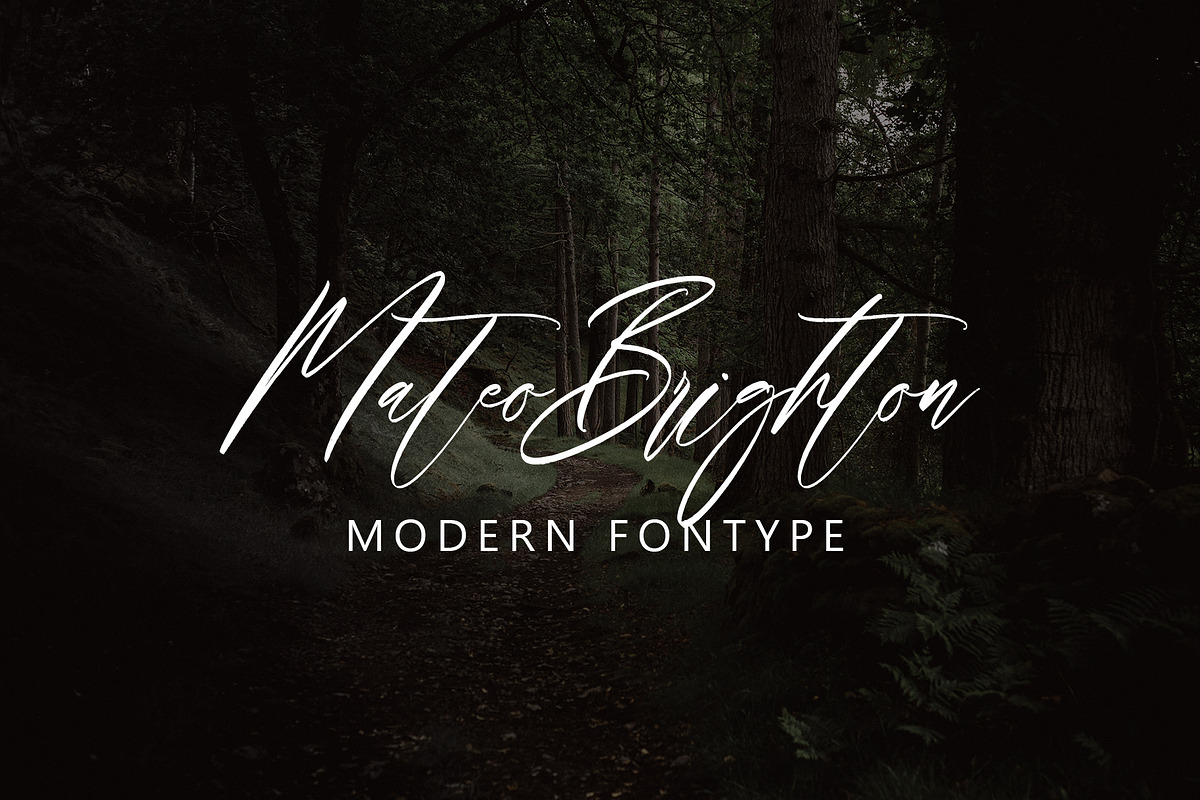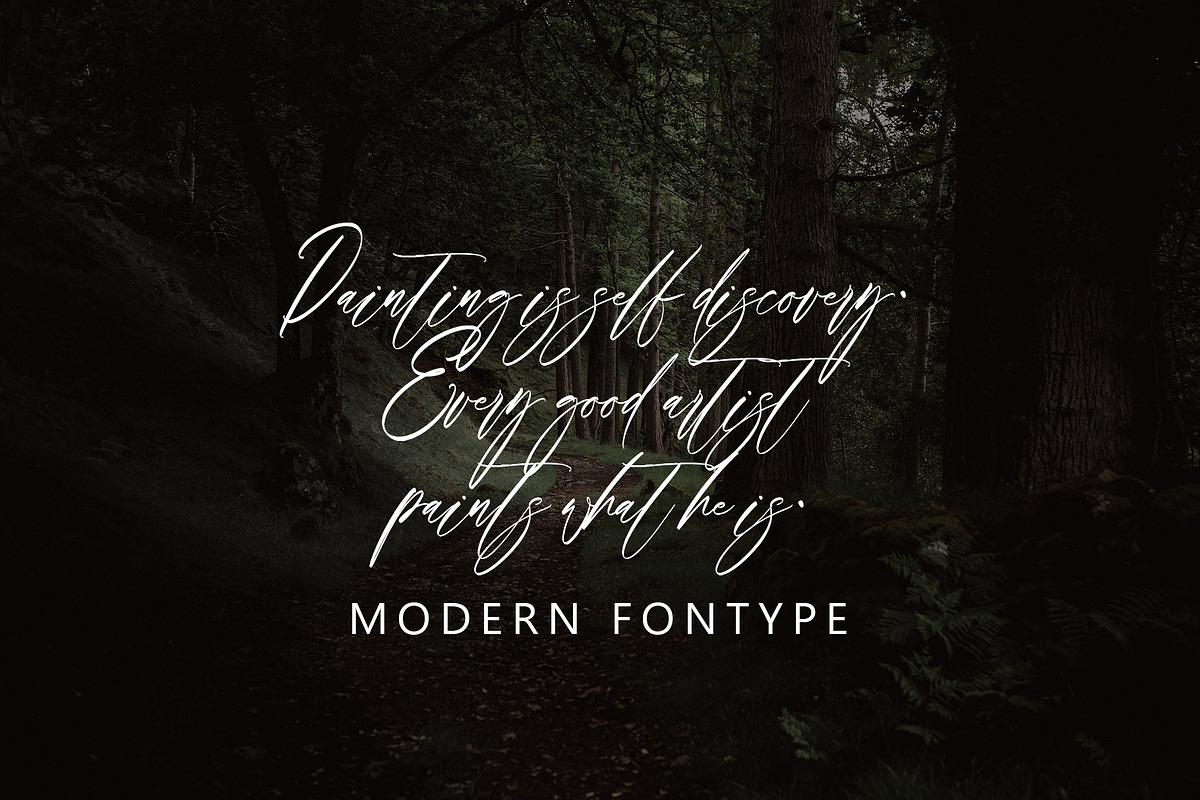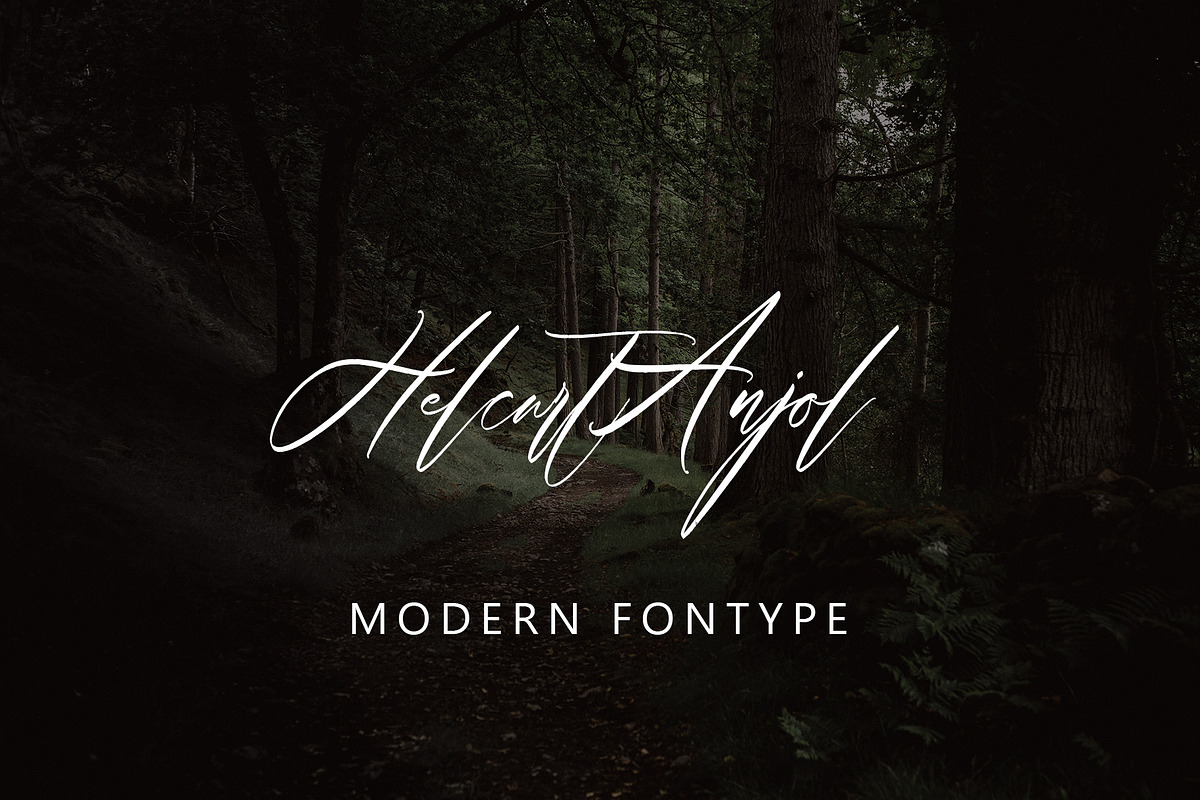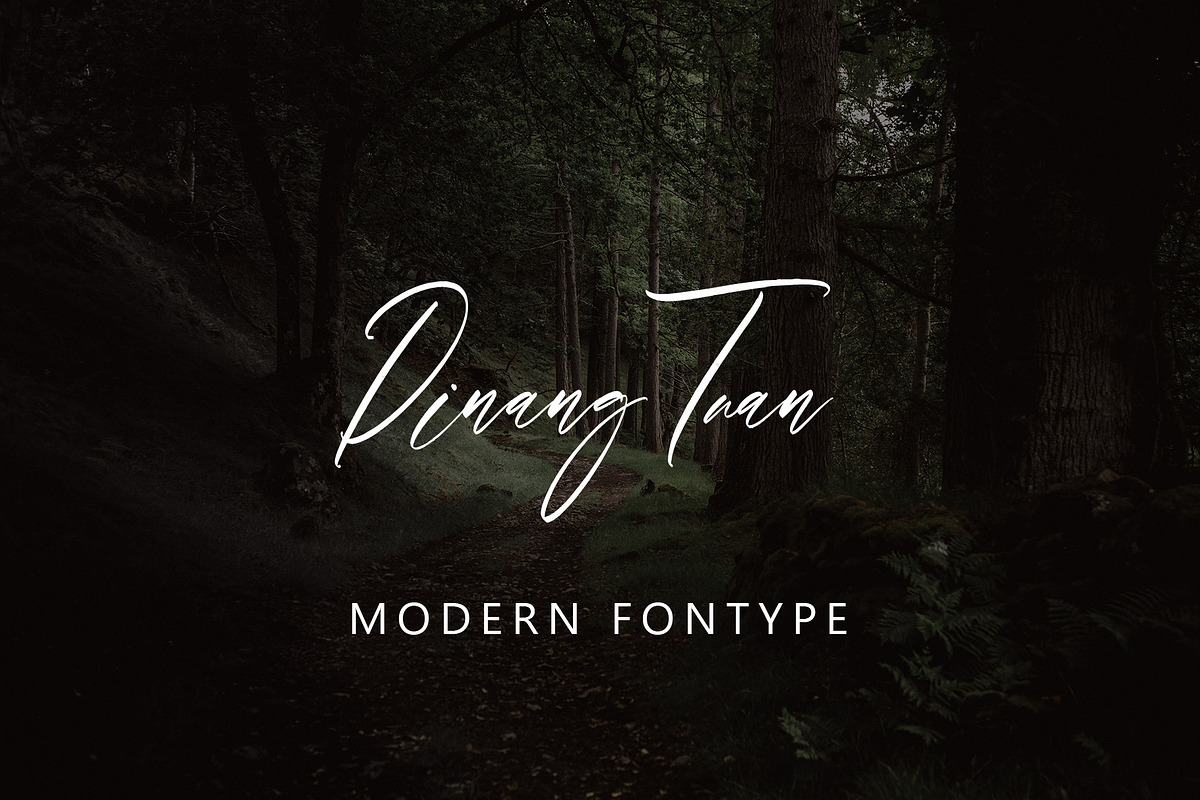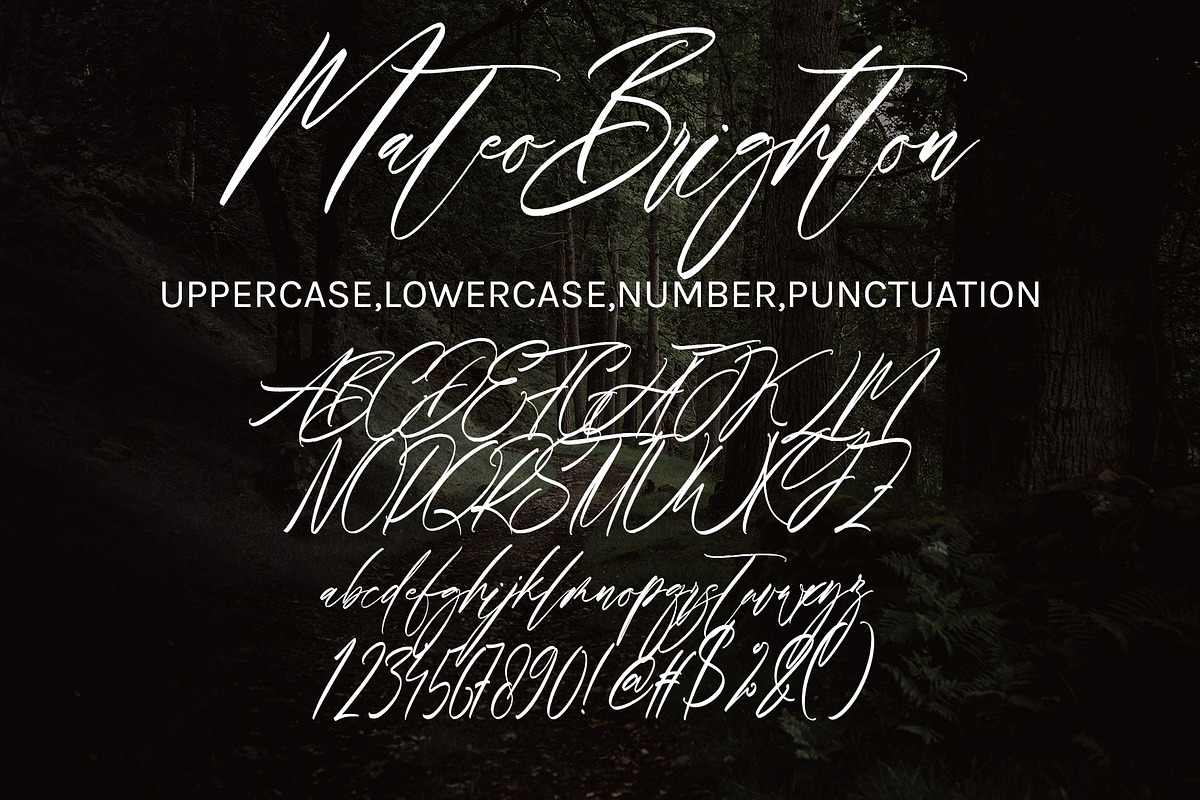
Mateo Brighton
Mateo Brighton with new style, this font will perfect for many different project ex: quotes, logo, blog header, poster, banding, letter, invitation, stationery, etc...